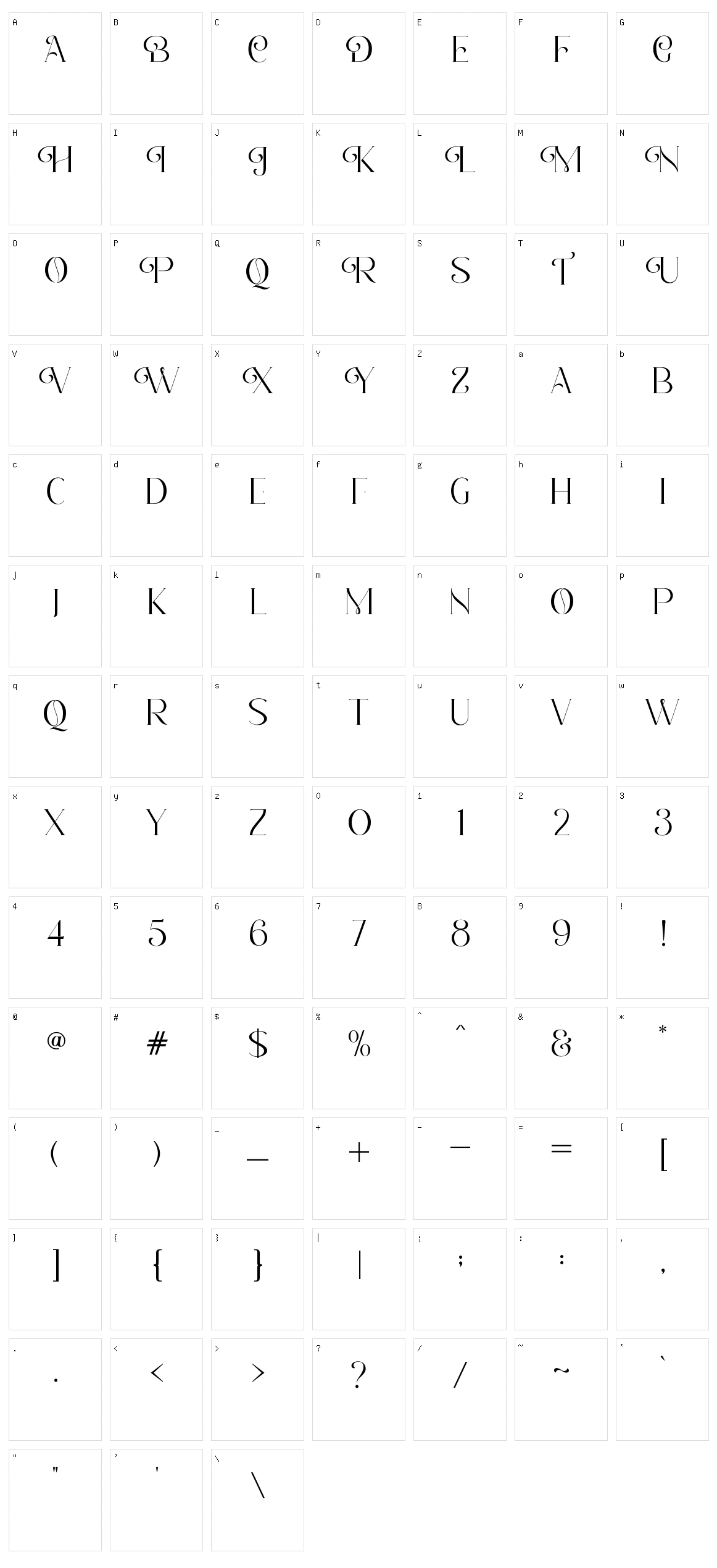
The free font Romantic Serif is carefully designed by HansCo, showcasing a thoughtful balance of creativity and usability and falls under the Retro font style. When you download the ZIP file, it contains only 39.5 KB of font files, making it lightweight and quick to download. Please review the license details below to understand permitted usage and distribution rights. If license information is not available, we recommend using this font for personal projects only or contacting the author directly for commercial usage permissions.